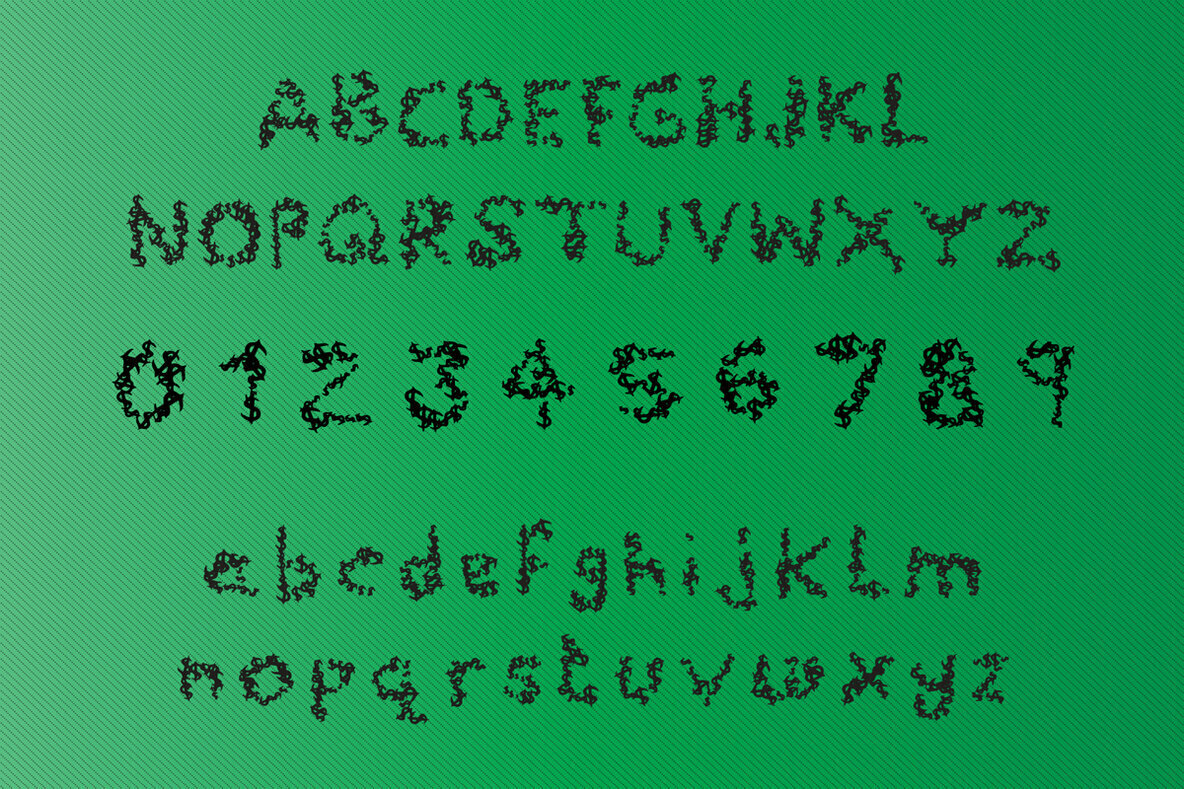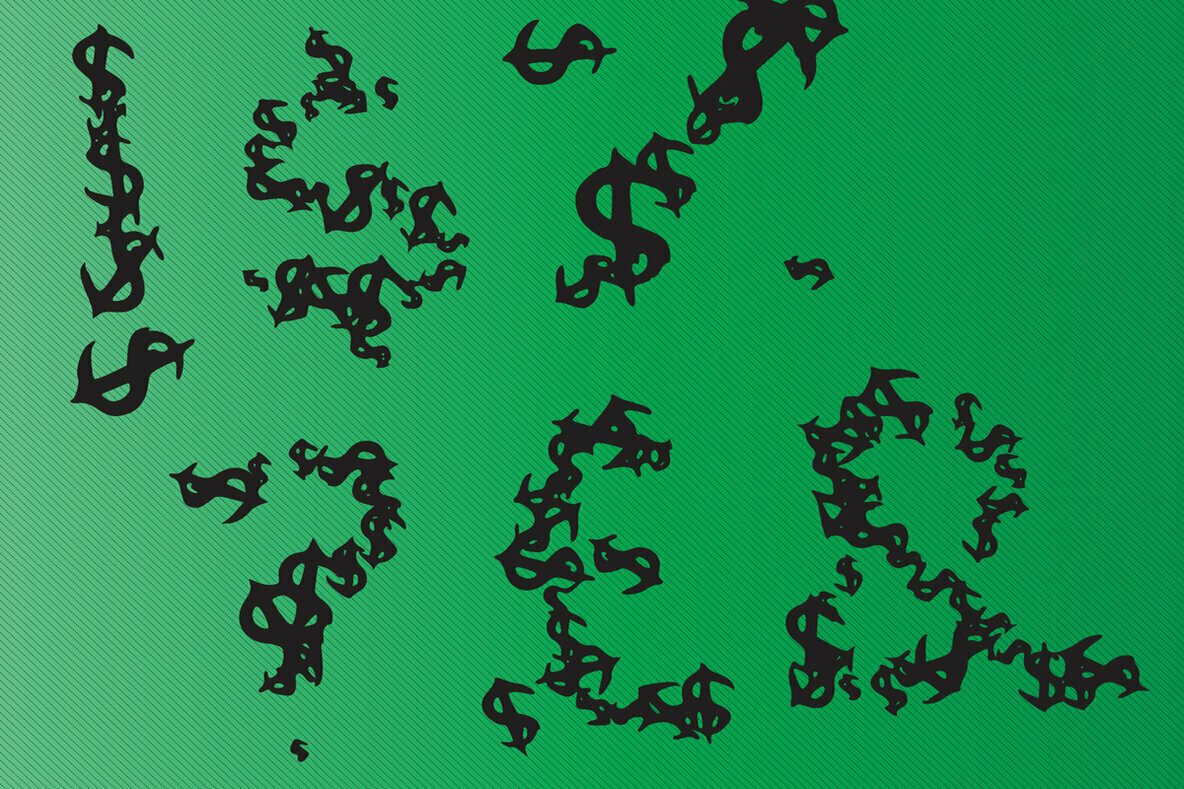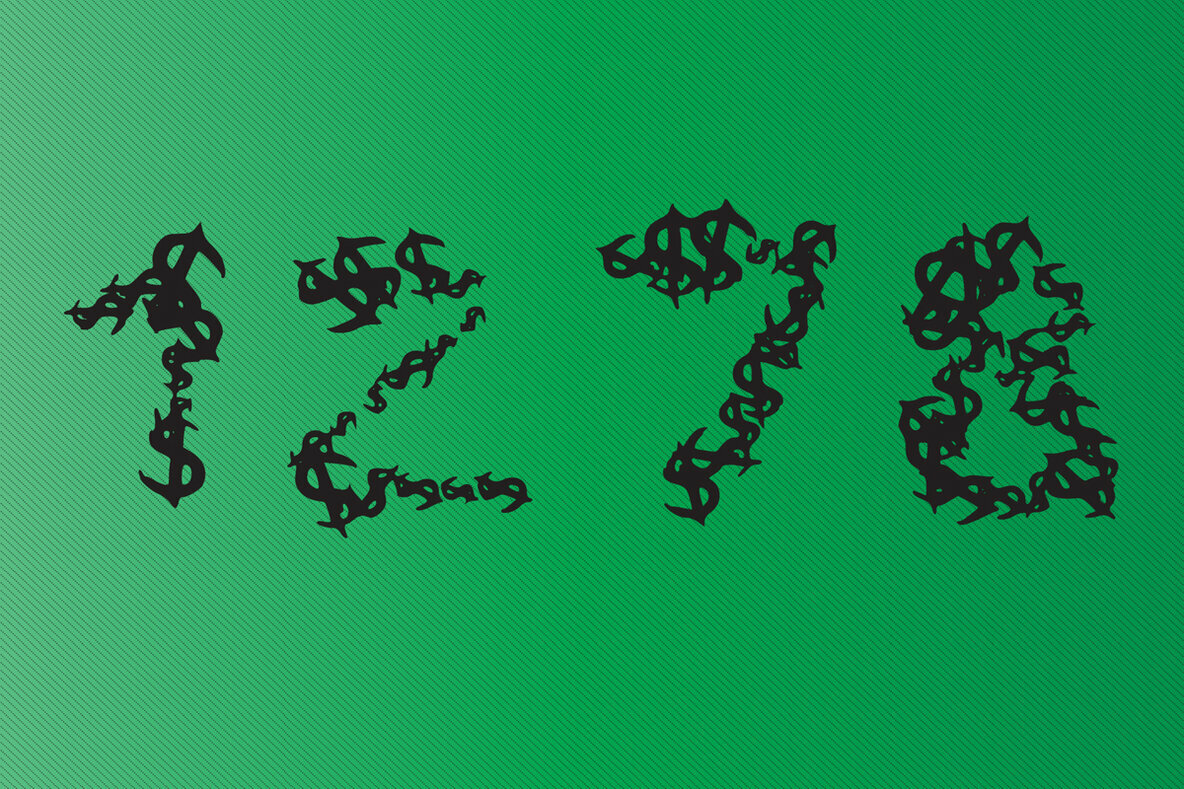
Money Money Font
Money Money
Money Money is a unique display font. Get creative with its original look and create amazing greeting cards, funny quotes and much more!